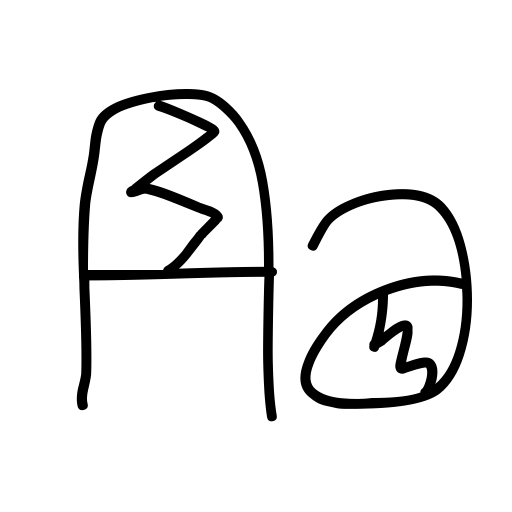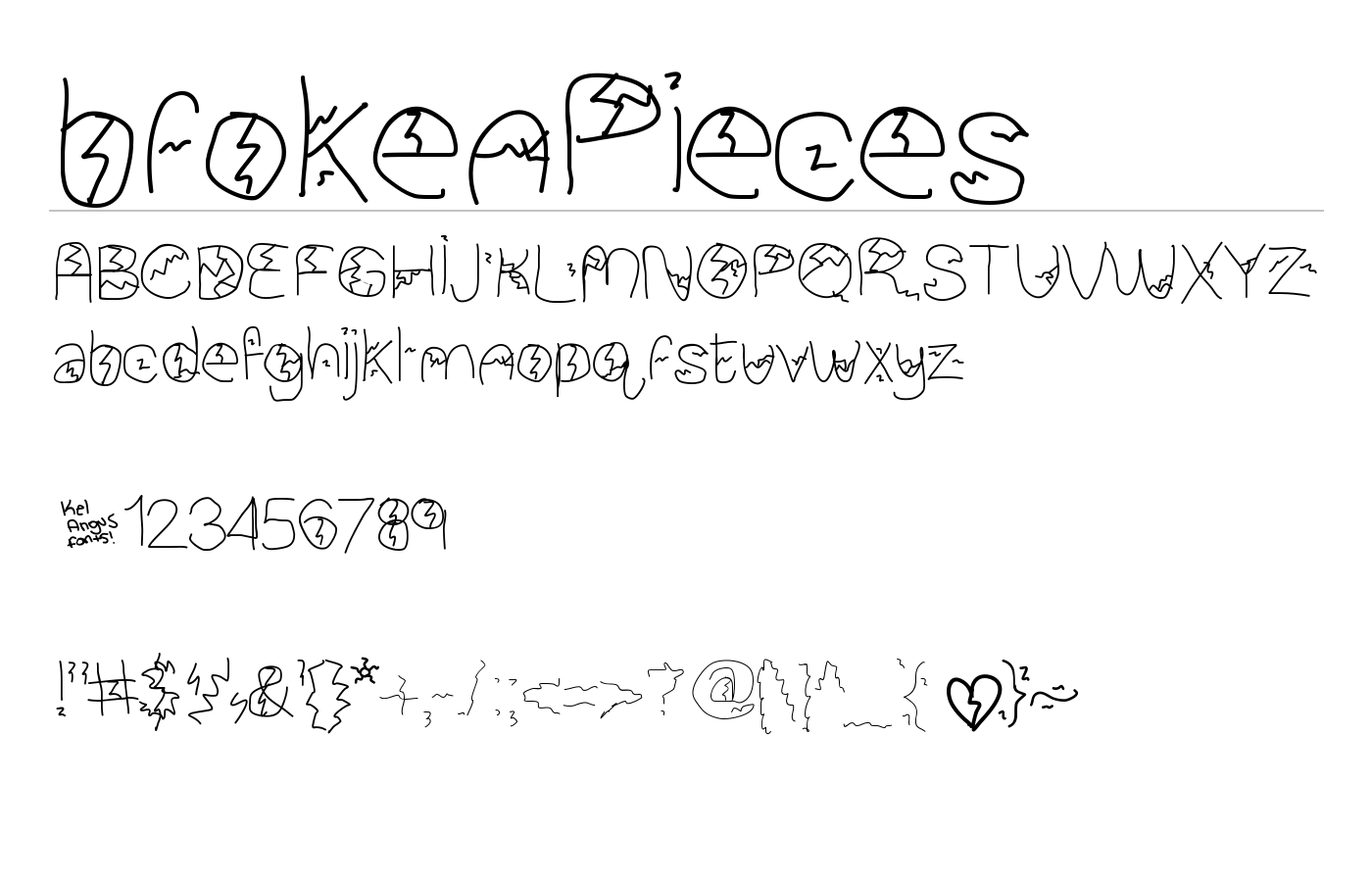
BrokenPieces is a quirky, hand-drawn sans serif font with thin, irregular lines and playful, fragmented details that create a broken, whimsical effect. Its casual and artistic style makes it perfect for creative branding, posters, or any design that wants to convey a fun, unconventional, and edgy personality. This font works best in larger sizes where its unique character can truly stand out and add a lively, handcrafted touch.
brokenPieces Font
About brokenPieces Font